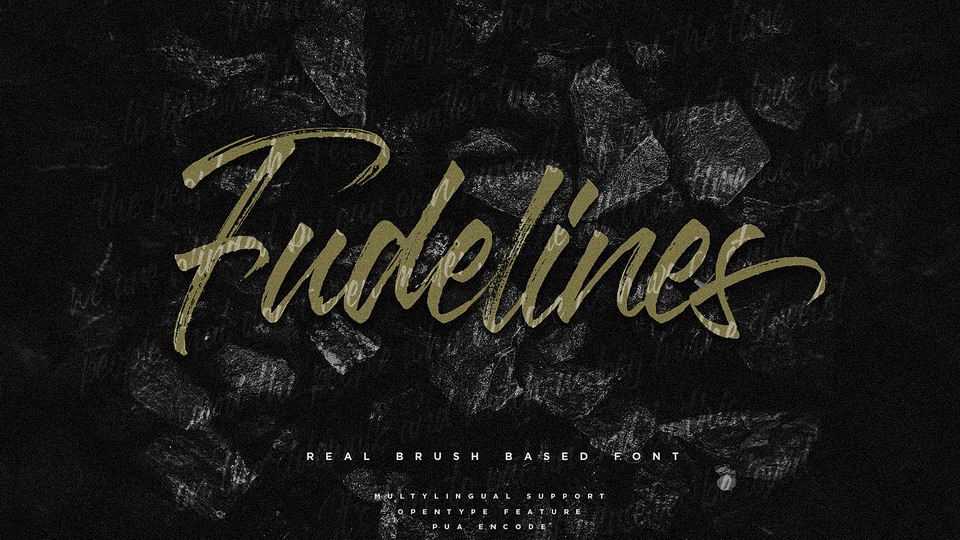
Download Fudelines font, a beautiful brush stroke font that has consistent letters. Fudelines font is perfect for eye-catching design such as printed t-shirt, apparel, social media, banners and others.